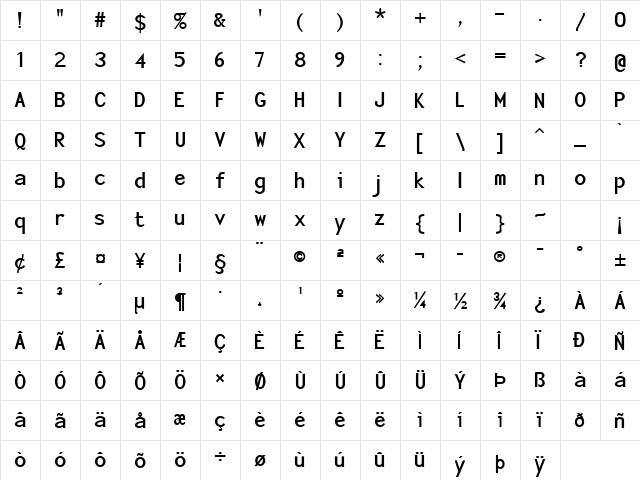
Sensor Bold
Design Context for Sensor Typeface
Sensor offers clean, dependable letterforms without strong stylistic allegiance, making it a practical choice for designers who need flexibility. Its bold stroke weight gives it real presence on the page.